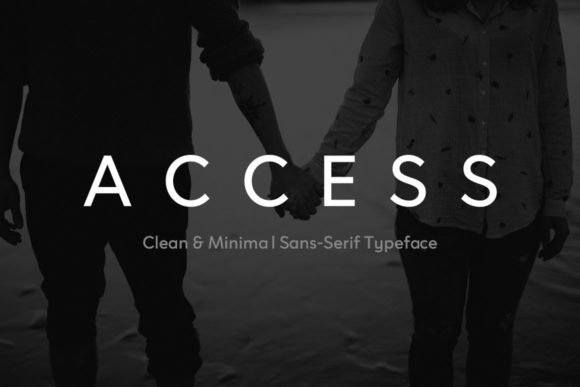
Find the Perfect Fit: Unlocking the Power of Access Font
Have you ever been stuck on a project, searching for the perfect font to bring your design to life? You’ve poured your heart and soul into the layout, but something’s missing – a finishing touch that elevates the entire piece. That’s where the magic happens, and Access Font steps in to save the day.
Access is a timeless, minimalist sans serif font that effortlessly adapts to a wide range of creative projects. Its simplicity and clean lines make it an excellent choice for designers seeking a versatile and stylish font. With Access Font, you can add a touch of sophistication and elegance to your designs, from logos to brochures, and everything in between.
Access Font Key Features
- Language Support: Access Font includes support for multiple languages, including Latin, Cyrillic, and Greek alphabets, making it a versatile choice for global applications.
- Unique Character Set: Access Font features a unique character set that includes a wide range of symbols, glyphs, and ligatures, ideal for creative and design-focused projects.
- Font Weight and Style Options: Access Font offers a range of font weights and styles, from Light to Bold, and from Regular to Italic, providing users with flexibility and customization options.
Access Font Review
I recently had the chance to work with the Access Font, and I must say it was a mixed bag. Here are my thoughts on what worked well and what didn’t.
- Accessibility-focused design**: The font is designed with accessibility in mind, making it a great choice for projects that require high levels of readability.
- Clear and concise typography**: The font’s clean lines and straightforward design make it easy to read and understand, even at smaller font sizes.
- Customizable**: The font comes with a range of customization options, allowing designers to tailor the look and feel to suit their project’s needs.
- Limited expressiveness**: The font’s straightforward design can make it feel a bit sterile or uninteresting in certain contexts.
- Not ideal for creative or artistic projects**: The font’s focus on accessibility and clarity can make it less suitable for projects that require a more expressive or artistic tone.
Overall, I think the Access Font is a solid choice for projects that require high levels of readability and accessibility. While it may not be the best fit for every project, it’s a great option for designers who need a clean and clear font that gets the job done.
Access Font: A Practical Application Guide
Access Font is a great choice for Canva users who want to add a touch of elegance and sophistication to their designs.
Access Font is a versatile font that works well in both photography and graphic design applications.
Access Font is a great choice for presentations and documents that require a professional and polished look.
Access Font is ideal for use in corporate branding, marketing materials, and digital publications. It’s also great for creating a cohesive look across multiple platforms.
Some tips for getting the most out of Access Font include:
- Using it in combination with other elegant fonts to create a sophisticated